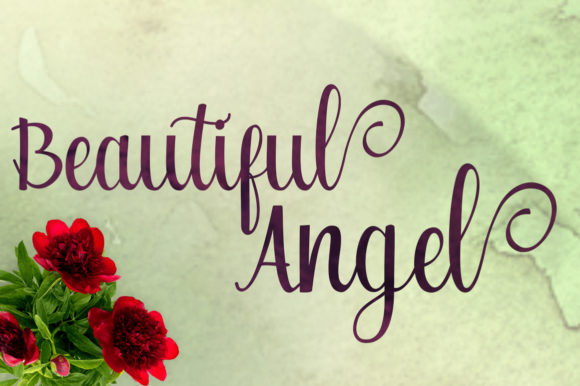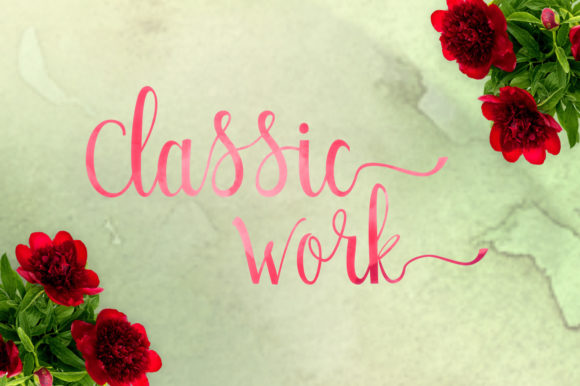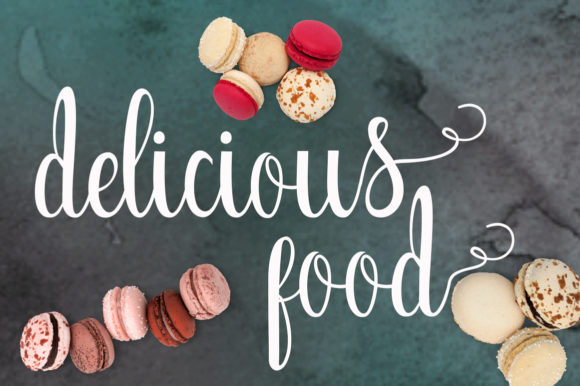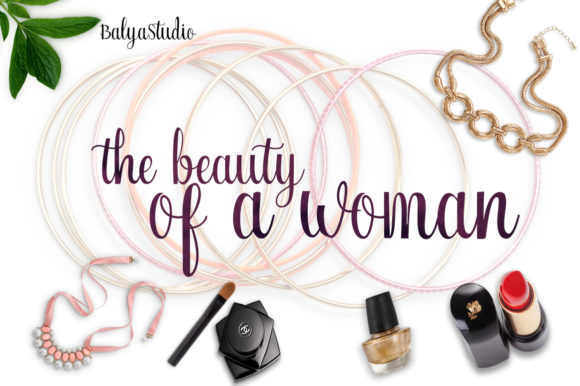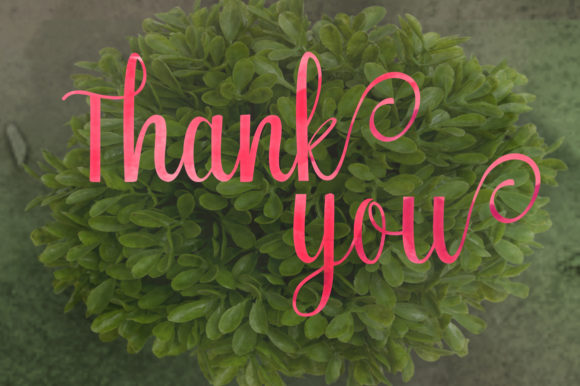
The Art of Handwritten Charm: Introducing the Almadilla Font
There’s something magical about stumbling upon a forgotten notebook in a dusty attic or a vintage letter in a family heirloom. The worn pages and faded ink transport us to a bygone era, filled with character and stories yet untold. For designers, this nostalgia is a constant source of inspiration, and the Almadilla Font is a perfect reflection of this timeless charm.
Handwritten calligraphy fonts like the Almadilla Font add a unique touch to any design, evoking feelings of elegance and sophistication. Whether you’re working on a wedding invitation, a branding project, or a simple greeting card, this font is sure to add a natural, handwritten charm that sets your designs apart. With its versatility and classic appeal, the Almadilla Font is a valuable asset for designers looking to create memorable and emotive designs.
- Unique Characteristics: Features a unique, hand-drawn style with intricate details and ornaments
Almadilla Font Review
I’ve had the chance to work with the Almadilla font, and I must say it’s a unique and stylish choice. Here are some of its strengths and weaknesses.
- Beautiful, elegant script style that’s perfect for creative projects
- Highly customizable, with a wide range of font weights and styles
- Works well in both digital and print formats
- Has a distinct, sophisticated feel that’s great for branding and design projects
- May be difficult to read at small font sizes
- Not ideal for projects that require a lot of body text, as it can be tiring to read
- May not be the best choice for projects that require a lot of emphasis or highlighting
Overall, I think Almadilla is a great choice for design projects that require a touch of elegance and sophistication. However, it’s not a one-size-fits-all solution, and you should consider its limitations before using it.
Use the Almadilla Font for creative projects, such as:
1. Designing business cards or letterheads.
2. Creating flyers or brochures.
3. Developing brand identities or logos.
Remember to experiment with different font sizes, colors, and styles to achieve the desired look.
Alternative Fonts to Almadilla Font
Lato is a modern sans-serif font designed by Łukasz Dziedzic. It’s ideal for use in digital products, such as websites, mobile apps, and video games, where readability is crucial. Lato is more versatile and offers a wide range of weights and styles, making it suitable for a variety of design projects. Compared to Almadilla Font, Lato is more legible at smaller font sizes and has a more neutral tone, making it a great choice for projects where a clean and modern look is desired.
Montserrat is a geometric sans-serif font designed by Julieta Ulanovsky. It’s perfect for use in urban and modern design projects, such as city guides, fashion brands, and tech companies. Montserrat is more condensed than Almadilla Font, making it ideal for use in tight spaces, such as headlines and titles. Compared to Almadilla Font, Montserrat has a more aggressive and edgy feel, making it a great choice for projects where a bold and modern look is desired.
Open Sans is a clean and modern sans-serif font designed by Steve Matteson. It’s ideal for use in digital products, such as websites, mobile apps, and e-books, where readability is crucial. Open Sans is more legible at smaller font sizes and has a more neutral tone, making it a great choice for projects where a clean and modern look is desired. Compared to Almadilla Font, Open Sans is more versatile and offers a wide range of weights and styles, making it suitable for a variety of design projects.
Almadilla Font is a versatile font that can be paired with a wide range of other fonts to create a unique and visually appealing design. Some suggested font pairing options include serif fonts like Merriweather or Georgia, script fonts like Pacifico or Great Vibes, or other sans-serif fonts like Open Sans or Lato. The key is to find a balance between contrast and harmony, and to experiment with different combinations to find the perfect pairing for your design project.